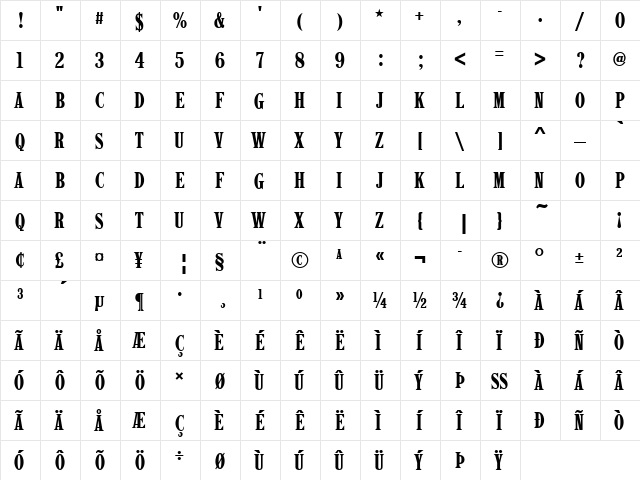
LatinComD Regular
Design Context for LatinComD Typeface
LatinComD offers clean, dependable letterforms without strong stylistic allegiance, making it a practical choice for designers who need flexibility.